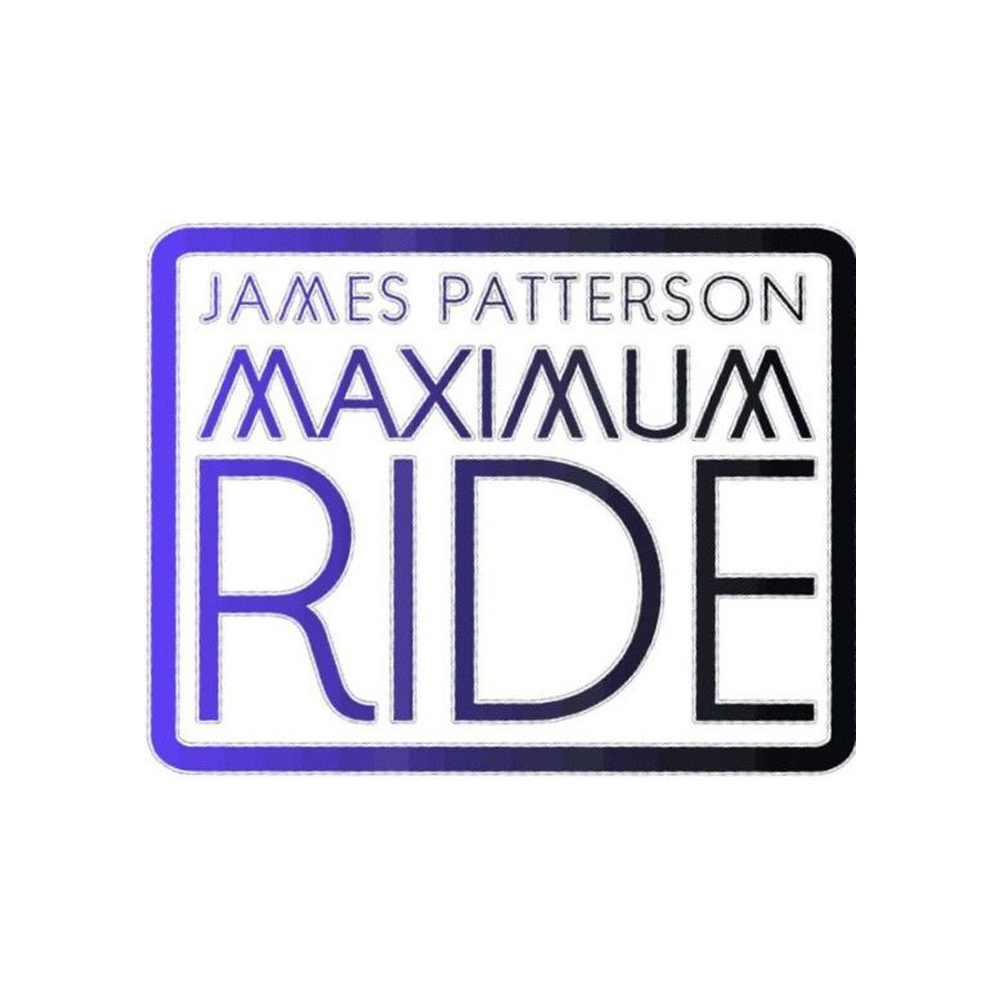
Maximum Ride Font
AdventureMaximum Ride is a series of young adult science fiction novels by James Patterson. Maximum "Max" Ride is the protagonist in the series, a teenage girl who leads a group of young people in pursuit of their own adventure after escaping from a lab facility known as The School.
On the cover, the manga series title is in Arnold Samuels, a geometric decorative font created by Swedish type designer Hans Samuelson. There are four weights in the font family: Light, Regular, Medium, and Bold. You can preview and buy the font here.